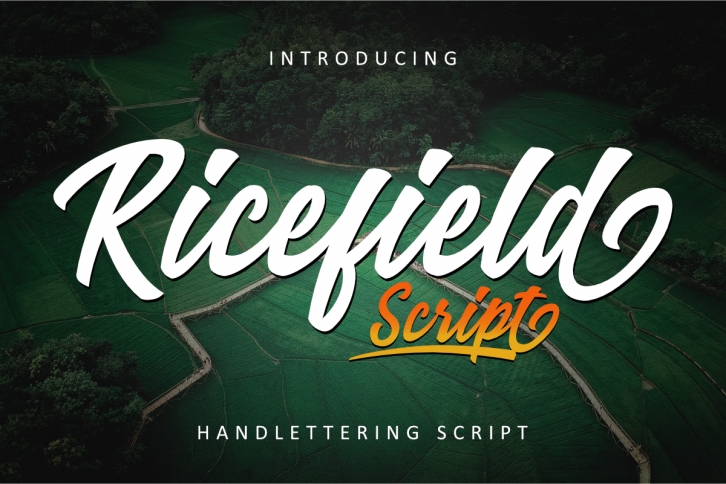
Ricefield Script is a gorgeous font that was realeased on August 26, 2019. The font can be used in many style contexts and design environments. Perfect for invitations, magazines, websites, logos, and more! It was designed by rudhisasmito and the file size is 6.98 MB. Thanks for checking out this font!